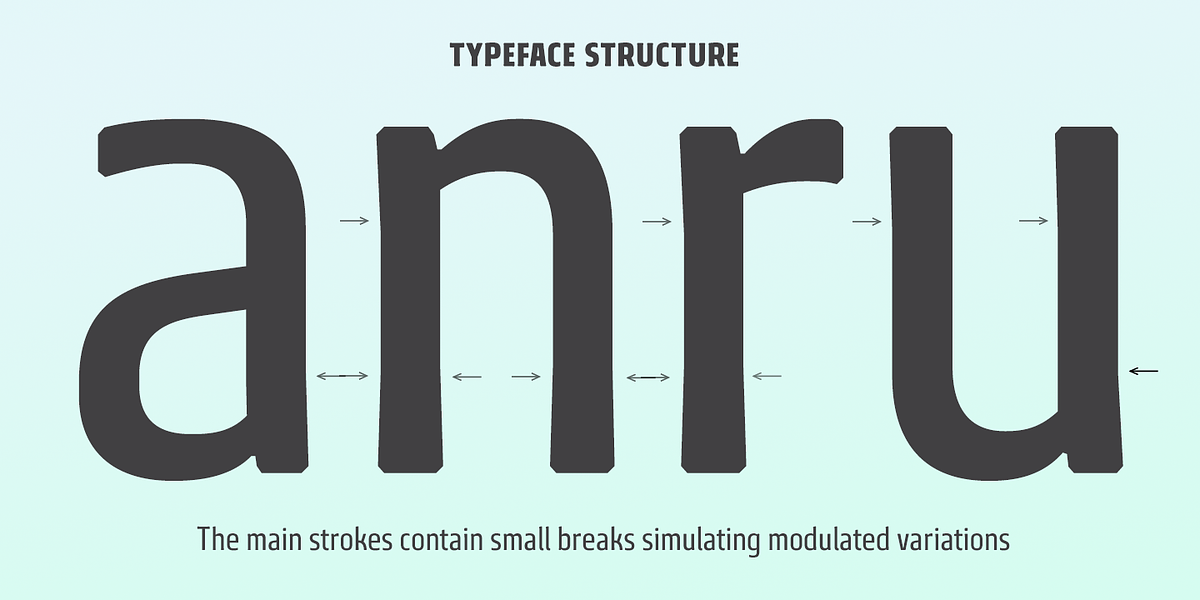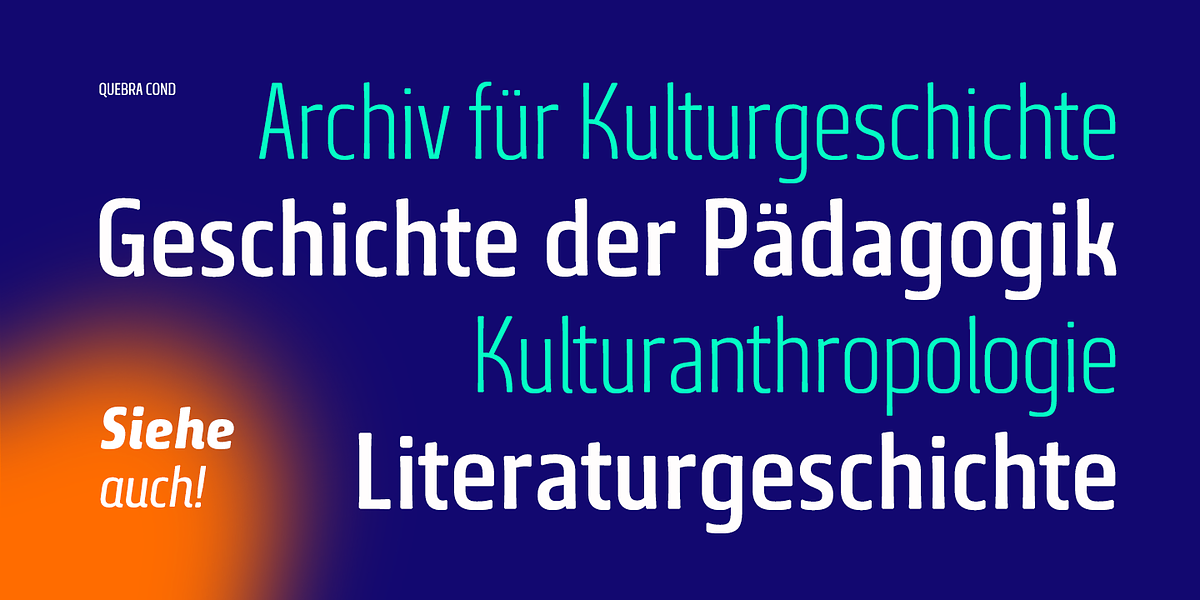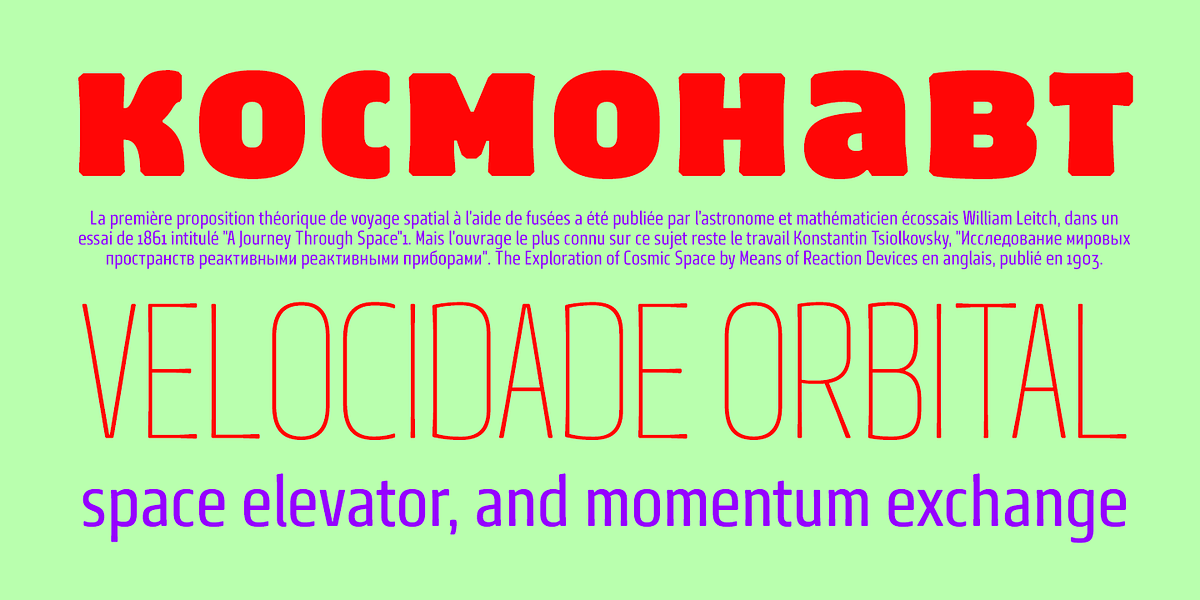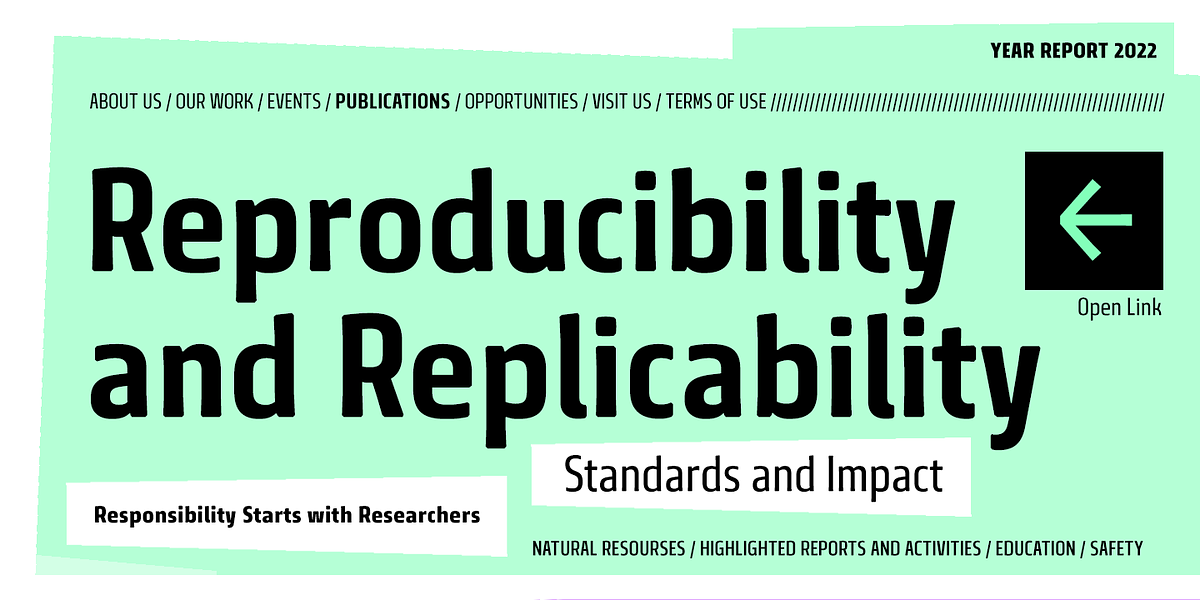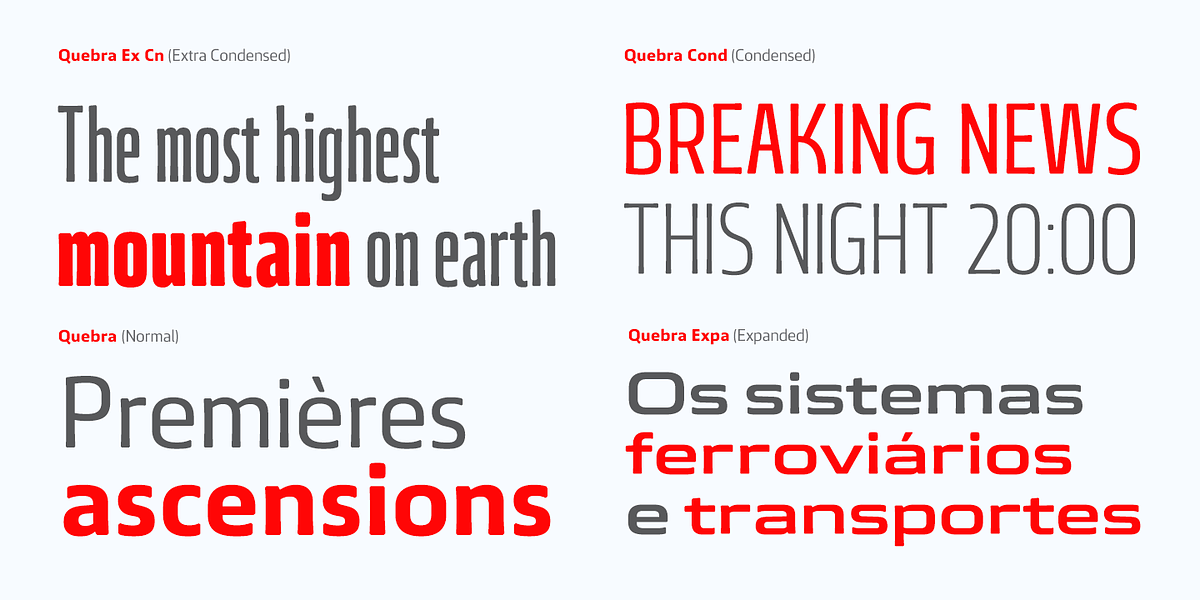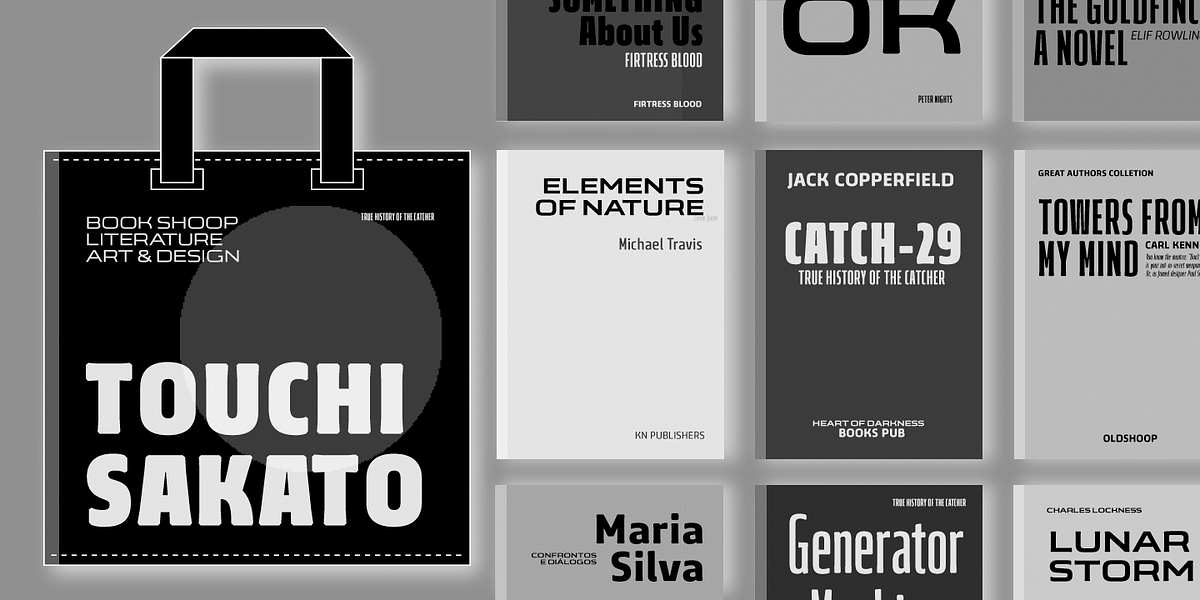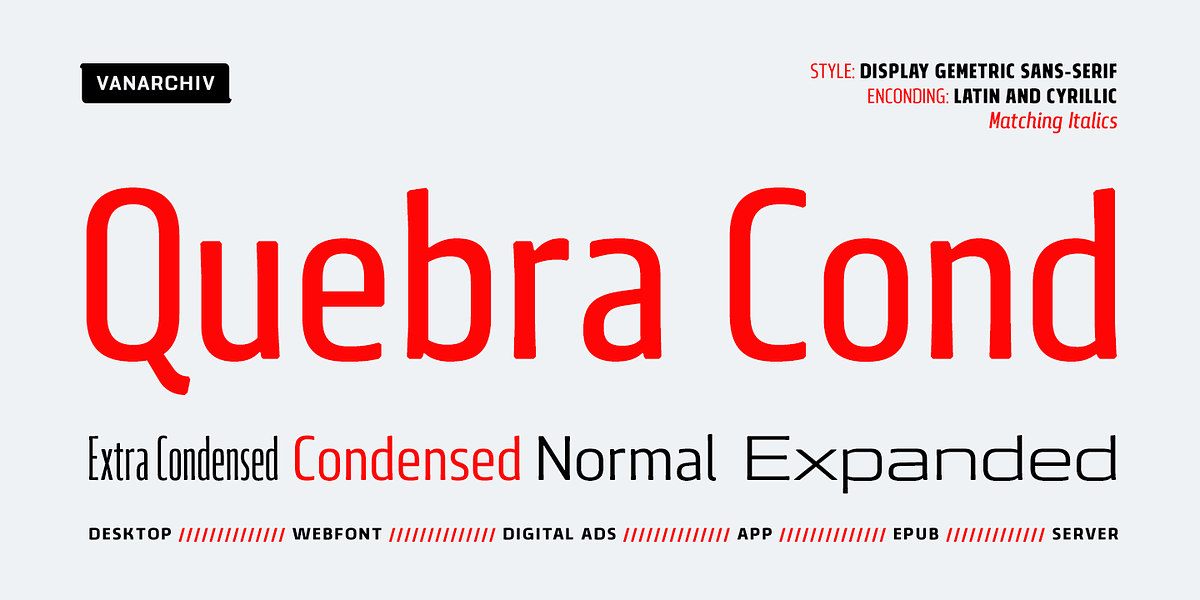
Quebra Cond
Quebra is a humanist sans-serif font family designed for display purposes. It features modulated strokes with intentional breaks that add visual interest, particularly at larger sizes. The font comes in a wide range of weights and widths, making it versatile for various applications. Quebra also includes extended character support, such as Cyrillic characters, ligatures, and different figure styles.